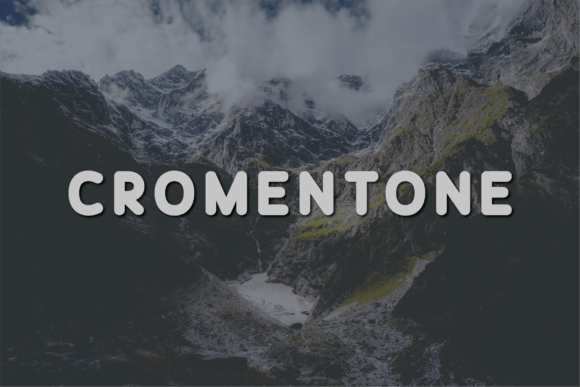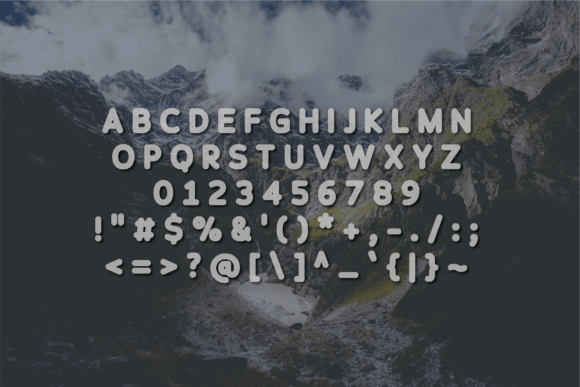
Cromentone Font: A Modern Sans Serif for Inspiring Logo Design
About the Cromentone Font
Make a bold statement with Cromentone Font, a powerful and memorable font. Cromentone is a versatile, modern, and classy sans serif font perfect for logos, weddings, invitations, quotes, advertisements, print, magazines, and more. Add it to your most creative ideas, and notice how it makes them come alive!
Cromentone’s clean lines and subtle curves lend themselves well to headlines, branding materials, and short-form text in advertising. Its elegant yet modern feel makes it suitable for high-end product packaging and sophisticated invitations. However, its limited x-height makes it less effective for body text or lengthy paragraphs, and its stylish nature might clash with minimalist UI designs.
To enhance its impact, pair Cromentone with a contrasting but complementary font. For a more classic feel, consider a serif like Garamond or a transitional serif like Jenson. For a bolder, more contemporary look, a geometric sans-serif like Futura or a slightly more playful sans-serif like Montserrat would work well.
Cromentone projects a sophisticated and approachable personality; it’s modern without being cold, and elegant without being overly fussy. Brands seeking a refined yet friendly image, such as those in the fashion, beauty, or luxury goods industries, would find it particularly suitable.